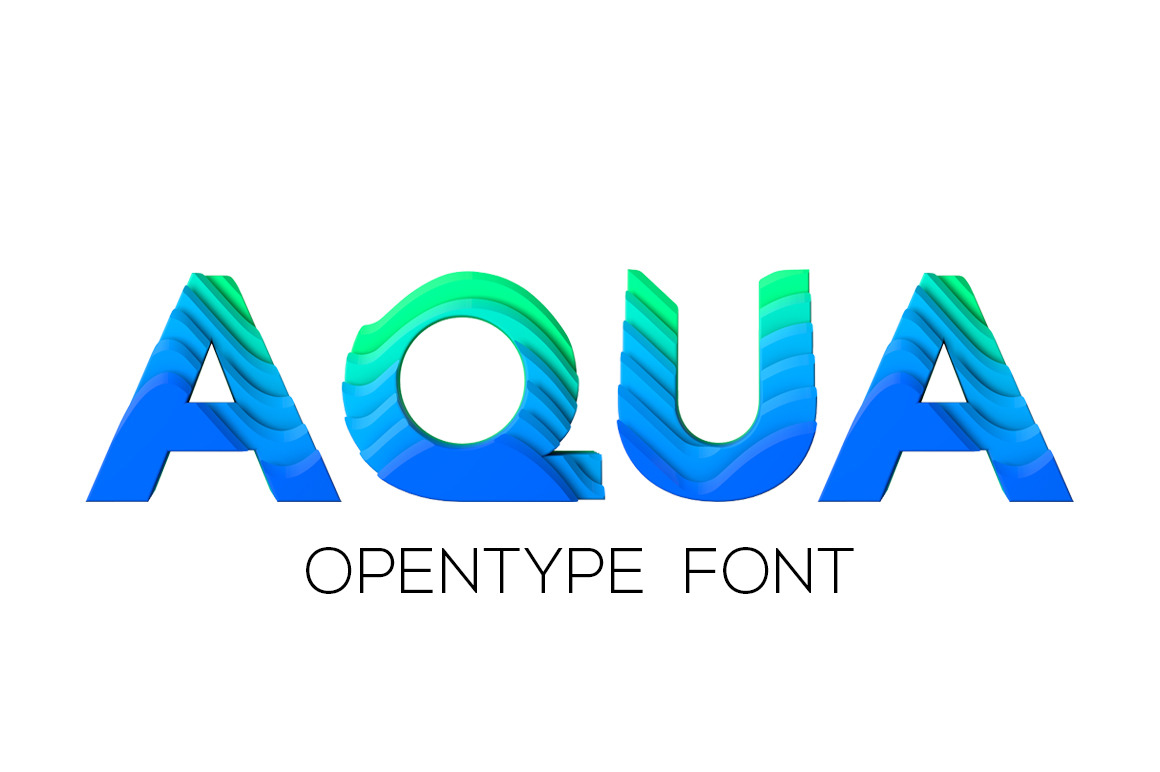
AQUA - OTF colour font
A fresh hello to AQUA
AQUA is a colour OTF font. Each letter has been created in 3D then turned into a simple to use font. Just download and start typing in slime green lettering. Each letter is approximately 1200 pixels in height.